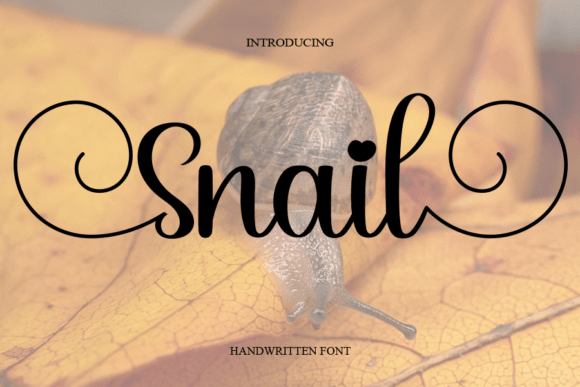
Immerse yourself in the world of elegant penmanship with Snail Font, the exquisitely crafted script font family that exudes sophistication and charm. Designed by the talented team at Cans Studio, Snail Font is an artistic masterpiece that brings a refreshing and natural touch to your creative endeavors.
With its effortless flow and graceful curves, Snail Font effortlessly captures the essence of handwritten beauty. Each character dances across the page, evoking a sense of intimacy and warmth that resonates with your audience. Whether you're crafting a heartfelt greeting card, designing an eye-catching headline, or embarking on your next design masterpiece, Snail Font is the perfect companion to elevate your project.
Experience the versatility of Snail Font as it seamlessly adapts to a myriad of applications. From the whimsical charm of greeting cards to the bold impact of headlines, Snail Font effortlessly enhances your designs with its timeless elegance. Its natural and organic aesthetic adds a personal touch that resonates with your audience, leaving a lasting impression that sets your work apart.
Unlock the endless possibilities of Snail Font and unleash your creativity. Its carefully crafted characters evoke a sense of authenticity and genuine connection, making it the ideal choice for projects that demand a personal touch. From heartfelt letters to captivating social media posts, Snail Font adds a touch of elegance and charm that captivates your audience and leaves them yearning for more.